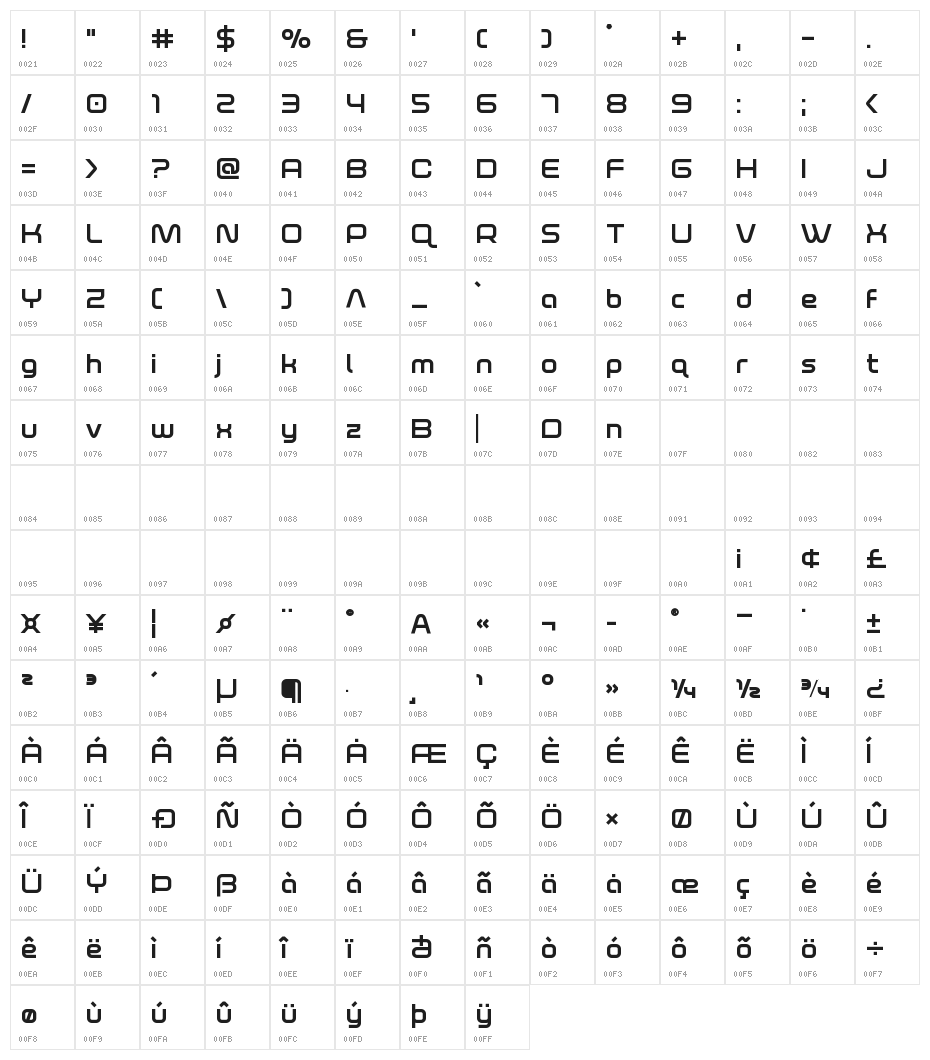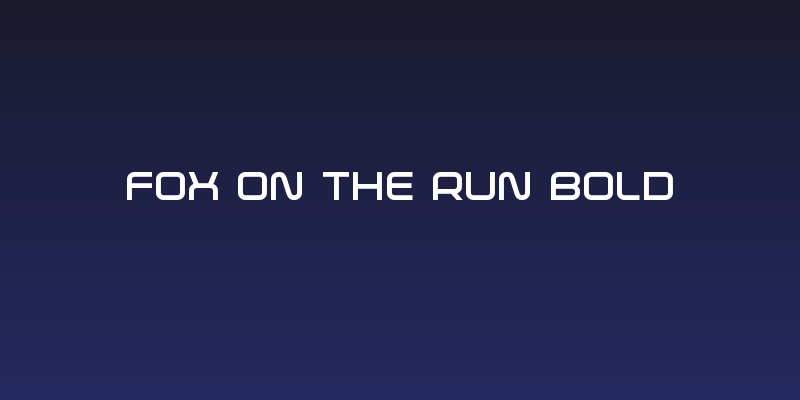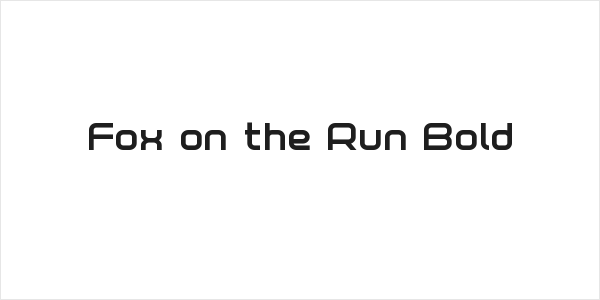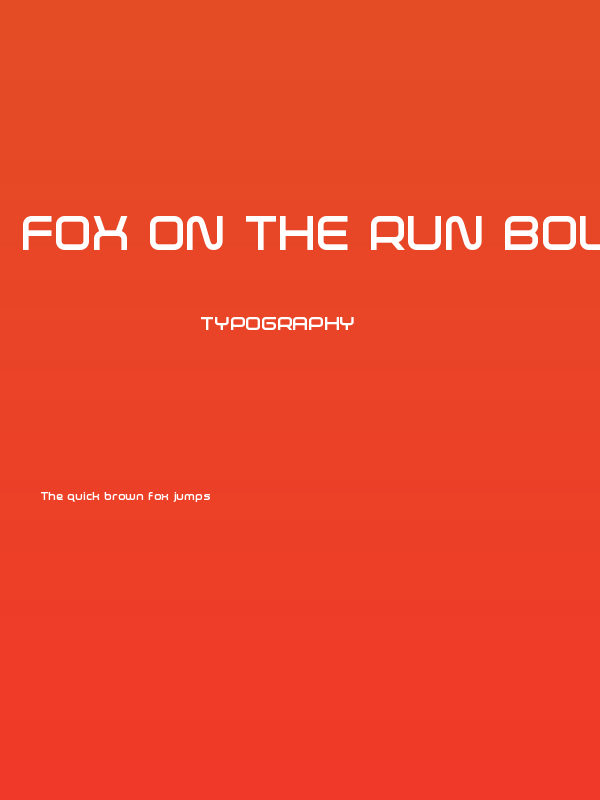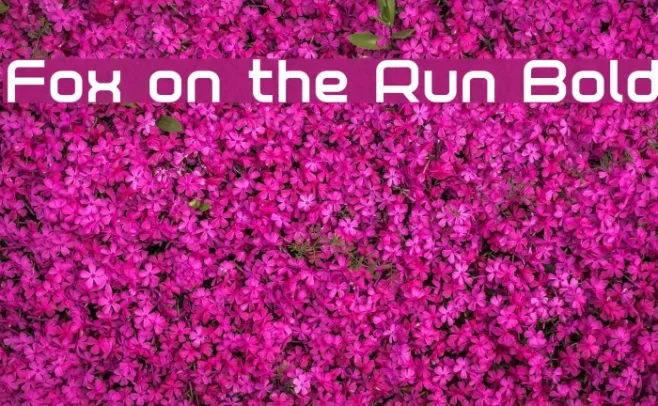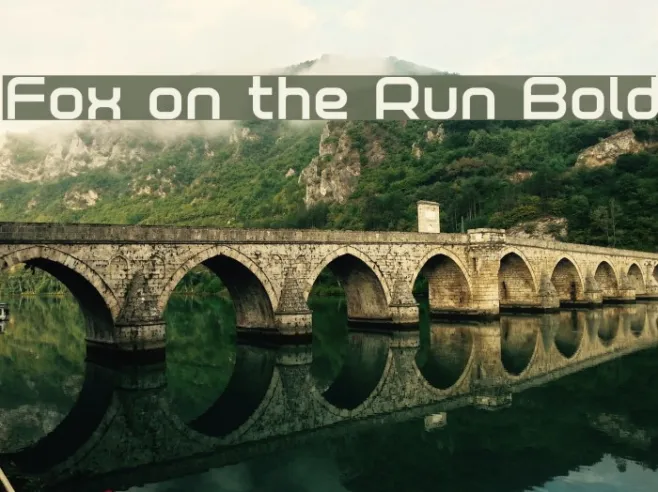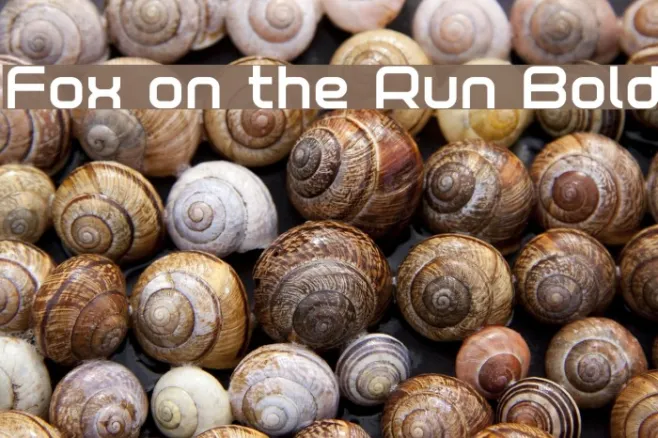
Fox on the Run Bold Font
Fox on the Run Bold Description
This font features a modern, geometric design with rounded edges, giving it a sleek and contemporary appearance. The characters are evenly spaced, providing a clean and organized look. The uppercase and lowercase letters maintain a consistent style, with a slight emphasis on curves, which adds a touch of softness to the overall boldness. The numerals are clear and distinct, making them easily readable. Special characters are well-integrated, maintaining the font's cohesive style. This font is versatile, suitable for various digital and print applications, offering a balance between readability and aesthetic appeal.
| Use Case | Headlines, Logos, Digital Interfaces |
| Proposed Projects | Ideal for tech branding, digital interfaces, modern advertising, and clean, minimalist design projects. |